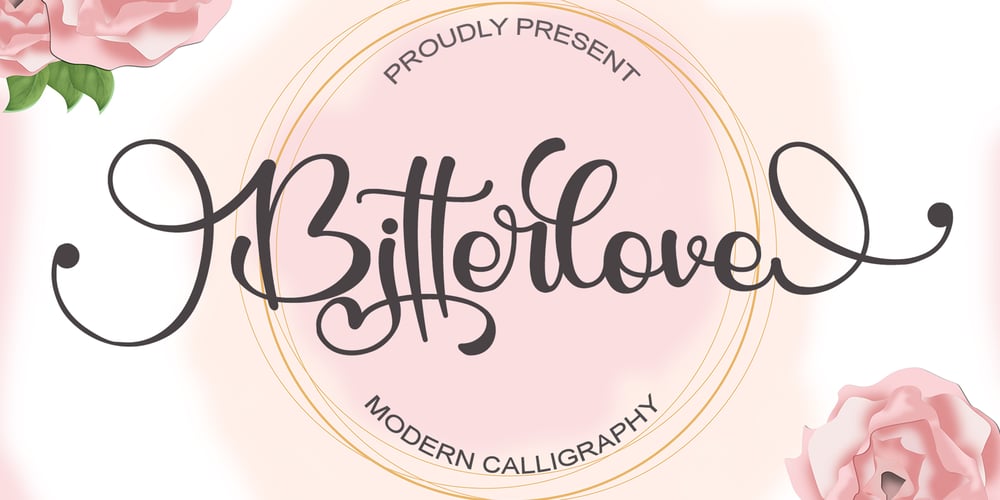
Bitterlove Font Family was designed by Ahmad Afandi and published by Letterafandi Studio. Bitterlove contains 1 styles and family package options. Bitterlove is a romantic and graceful calligraphy typeface with characters that dance along the baseline. It can be used for various purposes such as logos, wedding invitations, headings, t-shirts, letterhead, signage, labels, news, posters, badges and so much more. Bitterlove is PUA encoded which means you can access all of the glyphs and swashes with ease!